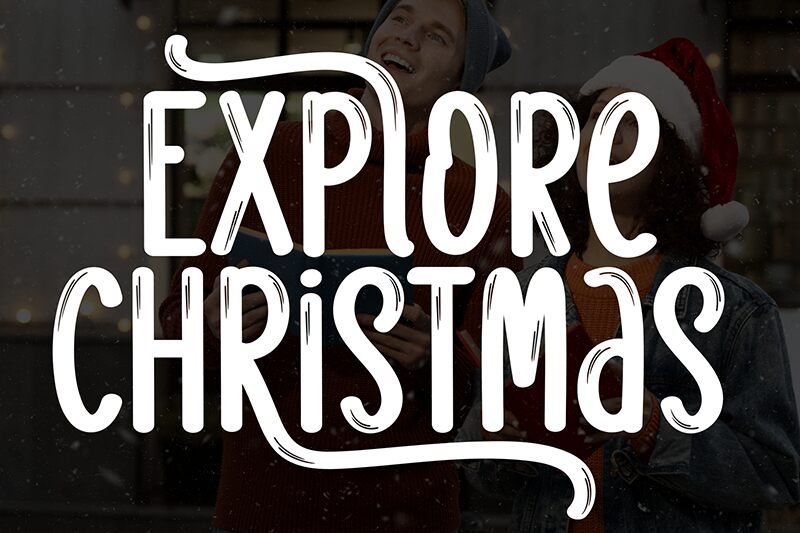
Explore Christmas font by Scratchones is a free brush font with a lively and whimsical style. With its festive and decorative elements, the font combines modern holiday appeal with a unique flair. The letters are energetic and ornate, creating a joyful ambiance that perfectly captures the spirit of the season.
Perfect for holiday-themed projects, Explore Christmas can be used on greeting cards, invitations, posters, and social media graphics. Its decorative style makes it suitable for packaging, branding, and any other creative work aiming to convey joyful ambiance.